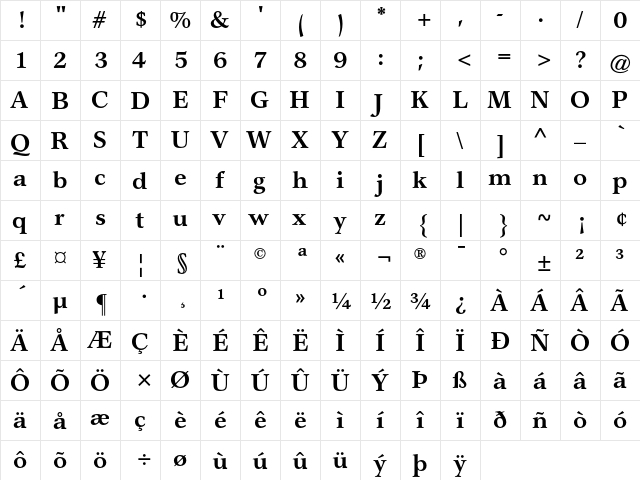
Garth Graphic Bold
Design Context for Garth Graphic Typeface
Garth Graphic takes a measured approach to typography — its balanced proportions and neutral character make it a reliable workhorse for both digital and print work. Its bold stroke weight gives it real presence on the page.